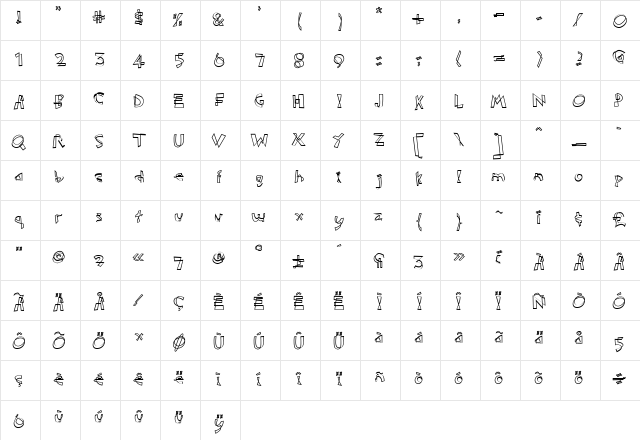
Manipulator Regular
Design Context for Manipulator Typeface
Manipulator is a composed and adaptable typeface that performs quietly and consistently across a wide range of design contexts.